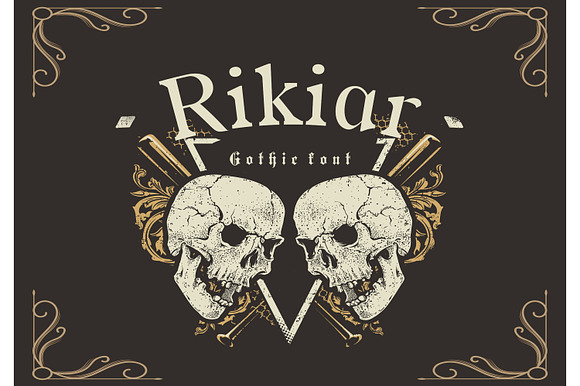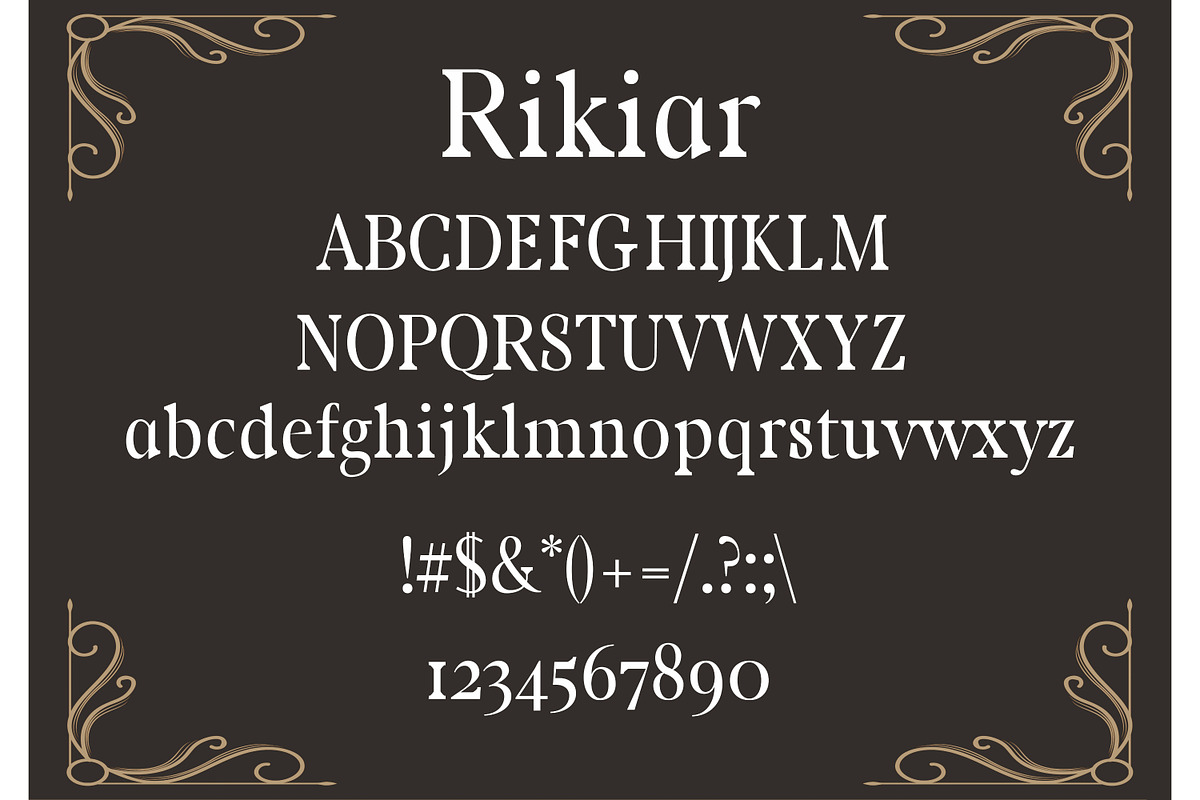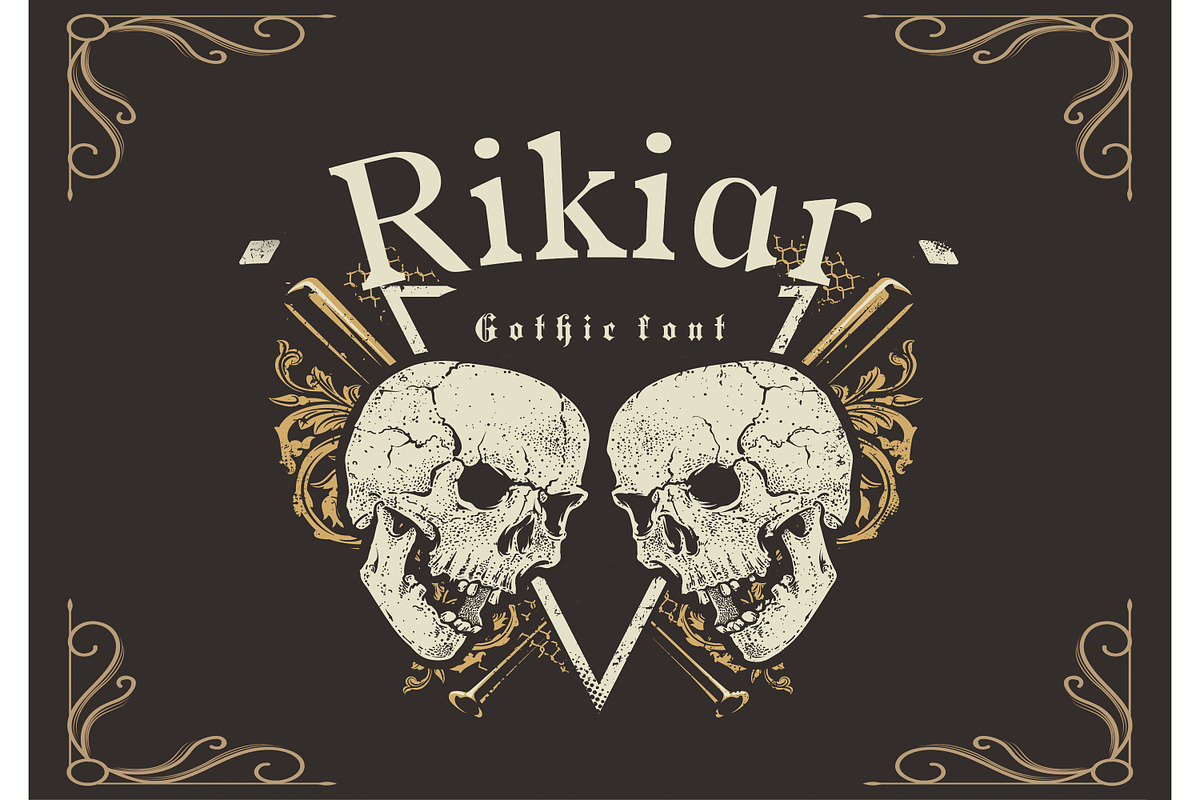
Rikiar Gothic Font
Rikiar Gothic Font by DmDesignsStoreArt is a font selected for branding, posters, packaging, typography.
Why Rikiar Gothic Font is worth a look
Rikiar Gothic Font by DmDesignsStoreArt fits naturally into Branding, posters, packaging, typography.